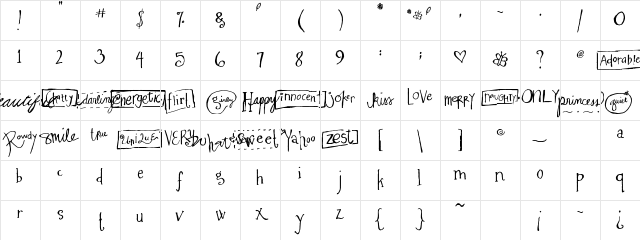
MA Flirty Regular Free Font
MA Flirty Regular
Design Context for MA Flirty
MA Flirty is a composed and adaptable typeface that performs quietly and consistently across a wide range of design contexts.